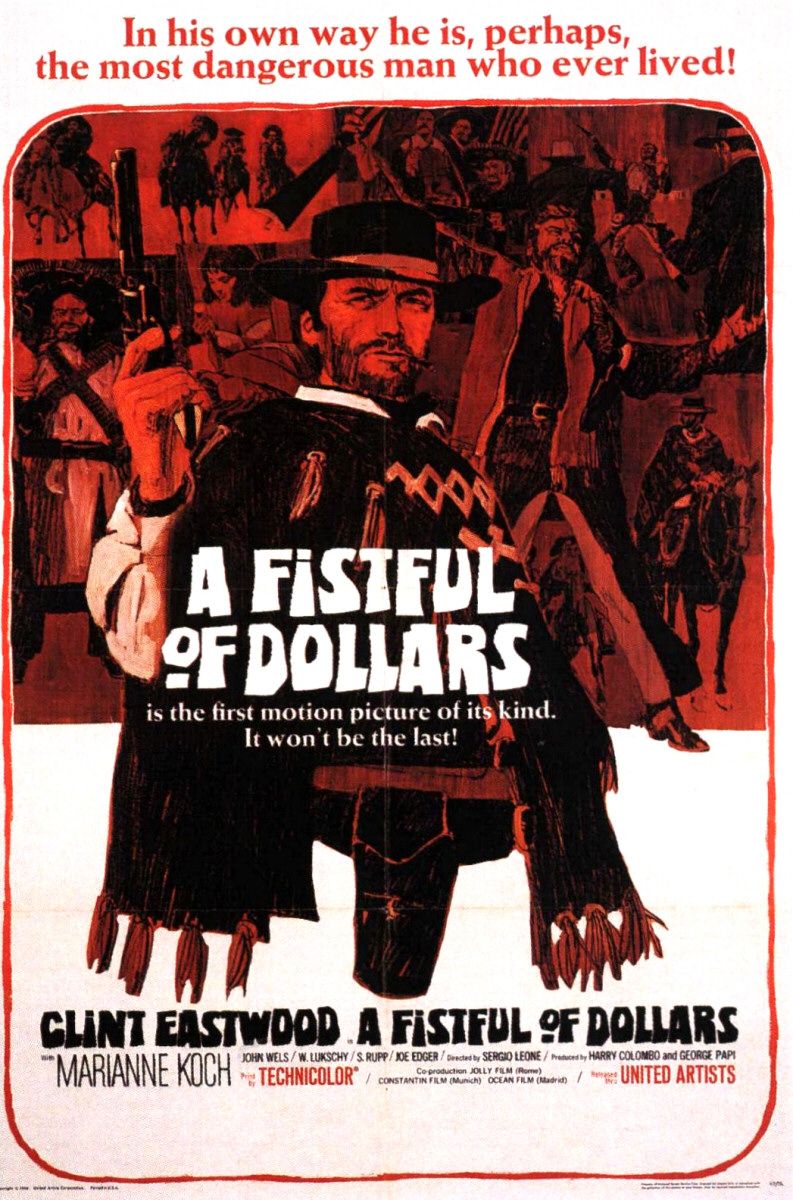
A Fistful of Dollars Font
Fonts in UseA Fistful of Dollars is a classic spaghetti western directed by Sergio Leone, featuring Clint Eastwood as a mysterious stranger who manipulates rival gangs in a small Mexican border town for his own gain.